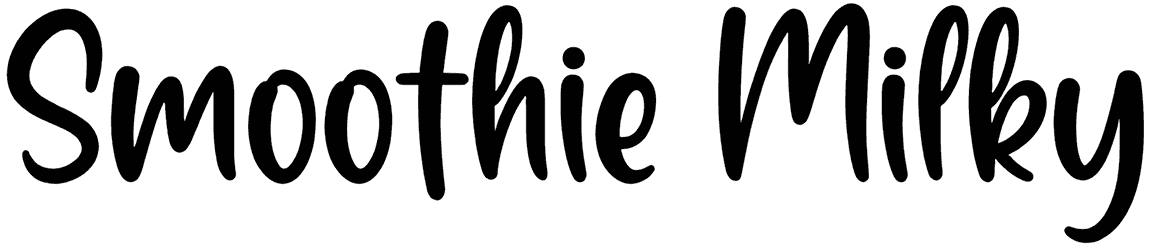
Smoothie Milky Font
Smoothie Milky, as a nice handwritten font, will add a modern touch to your digital designs. Everything from paper and clothing to notes and invitations has been made of it.
In order to elicit cool emotions, use a Smoothie Milky font to adorn your typography face as much as possible with a calligraphic design. If you and your client are looking for a new creative challenge, try this script font, and you might be pleasantly surprised with the results.